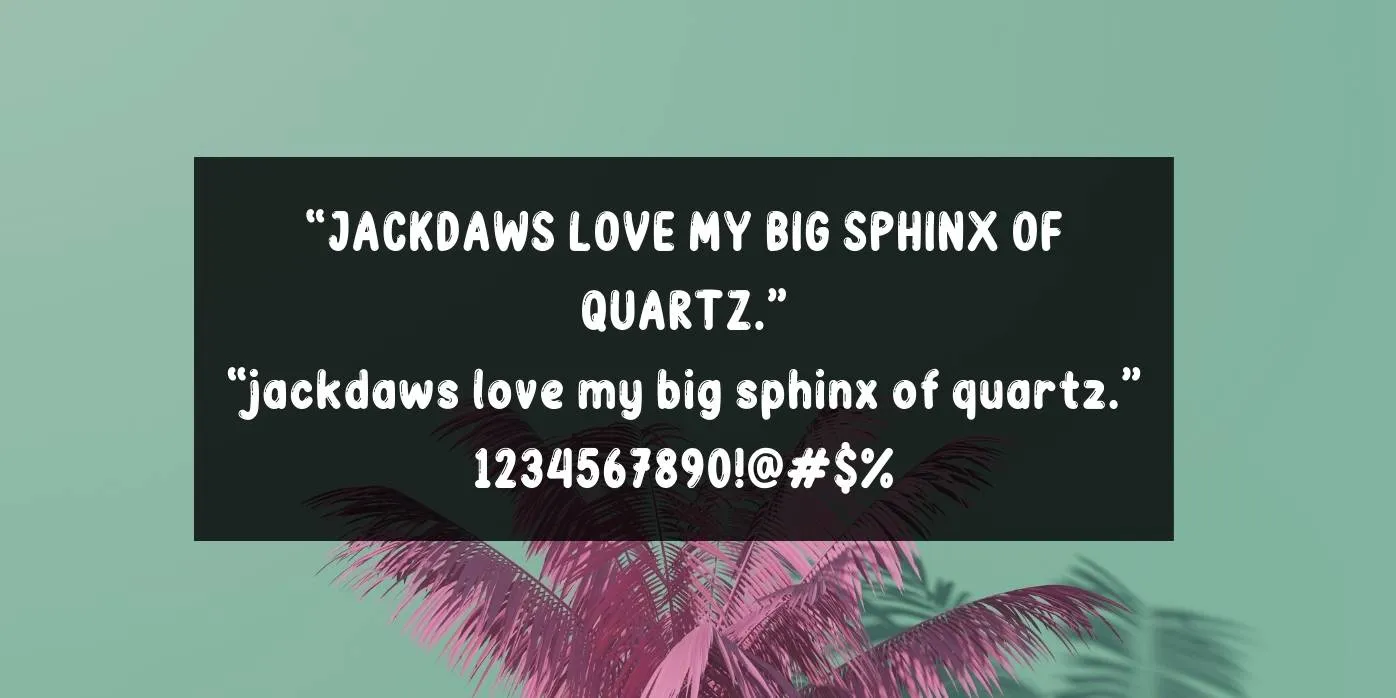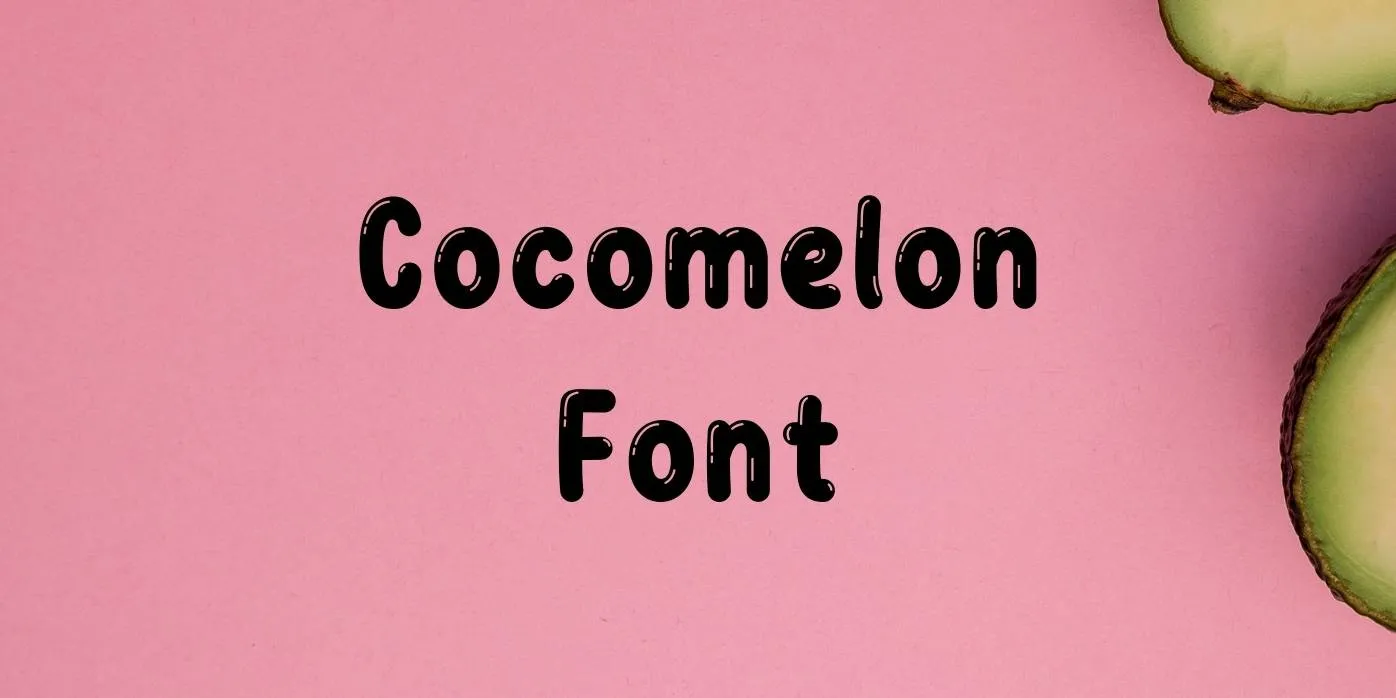
Cocomelon Font
Here, we present a staggering typeface known as Cocomelon Font. This family was developed by Editorial Staff. This typeface belongs to the display family. This family can be used for various purposes like headlines, advertising, and more.
The family is available in two weights: Regular and Light. Both versions include an extensive character set. It is also used for CSS and SVG. Cocomelon Font is a fun typeface that will add a touch of playfulness to your designs.
This font is perfect for creating invitations, greeting cards, and other materials for kids’ parties. It has a unique personality that will make your designs stand out from the crowd. This font family is used for Canva and Adobe Photoshop. This family is known for its copy and paste function.